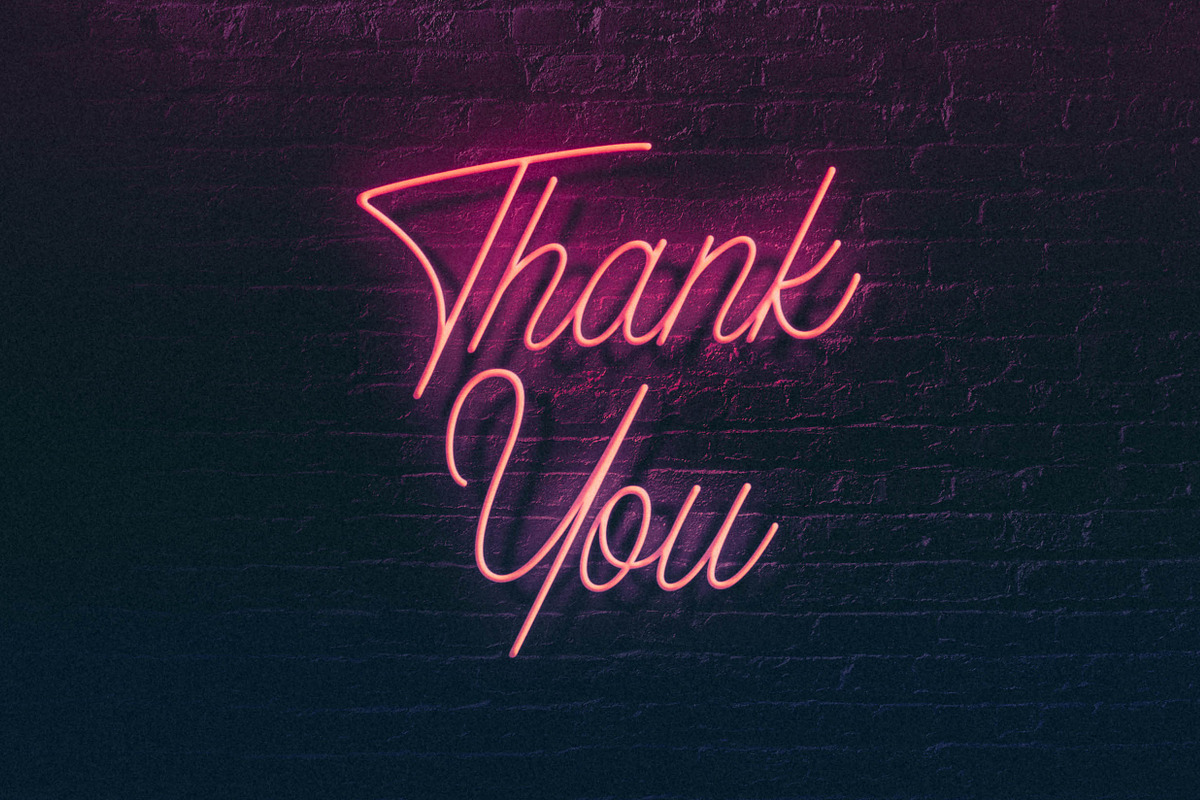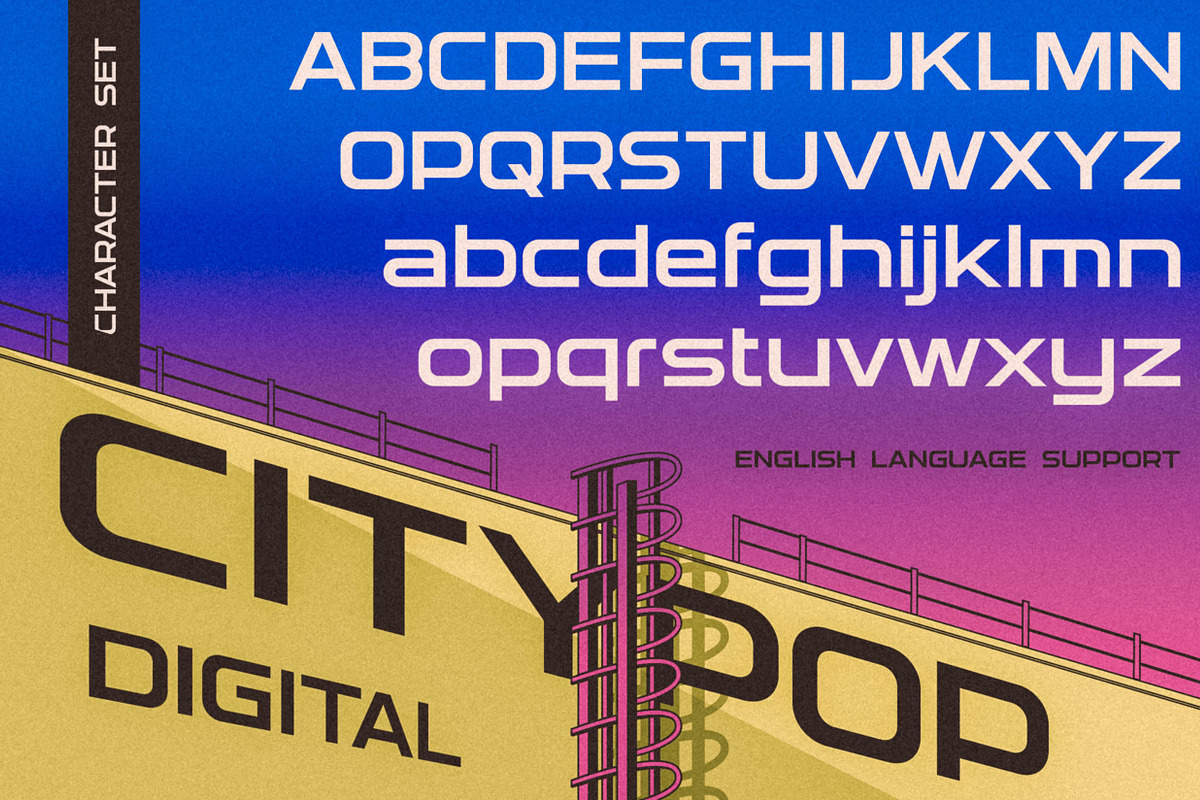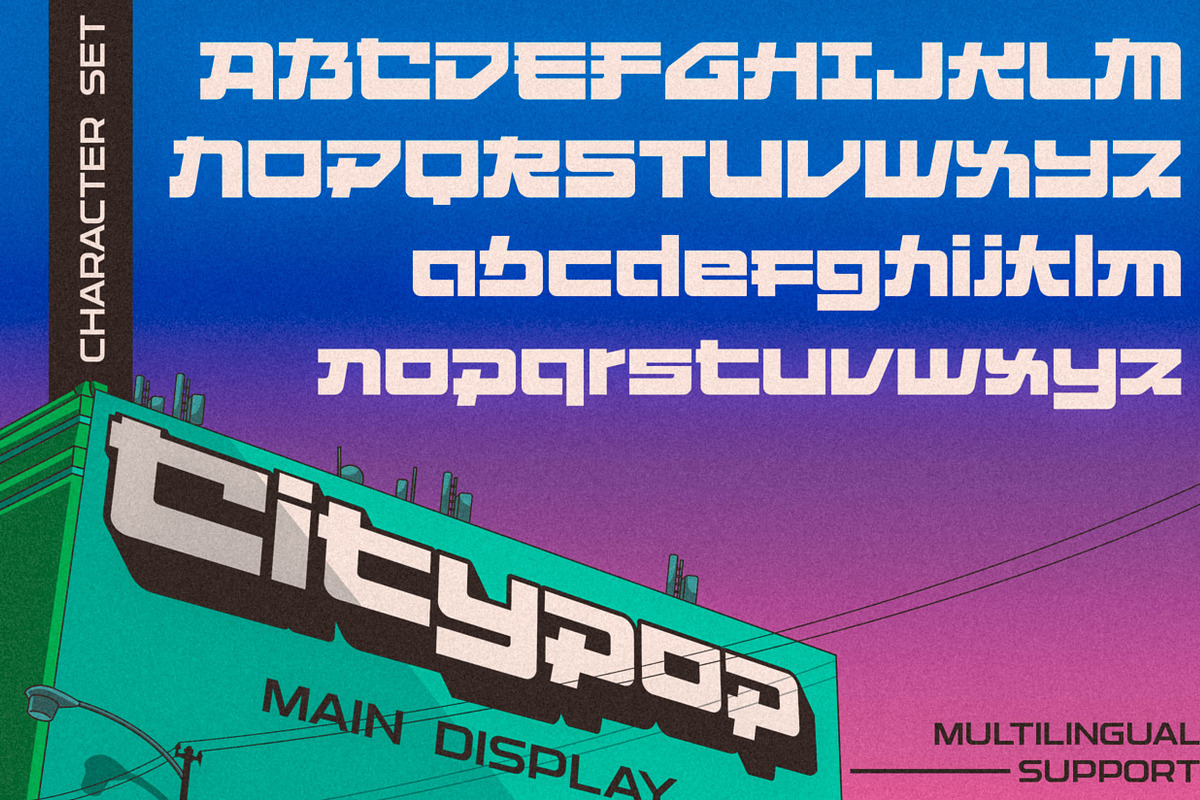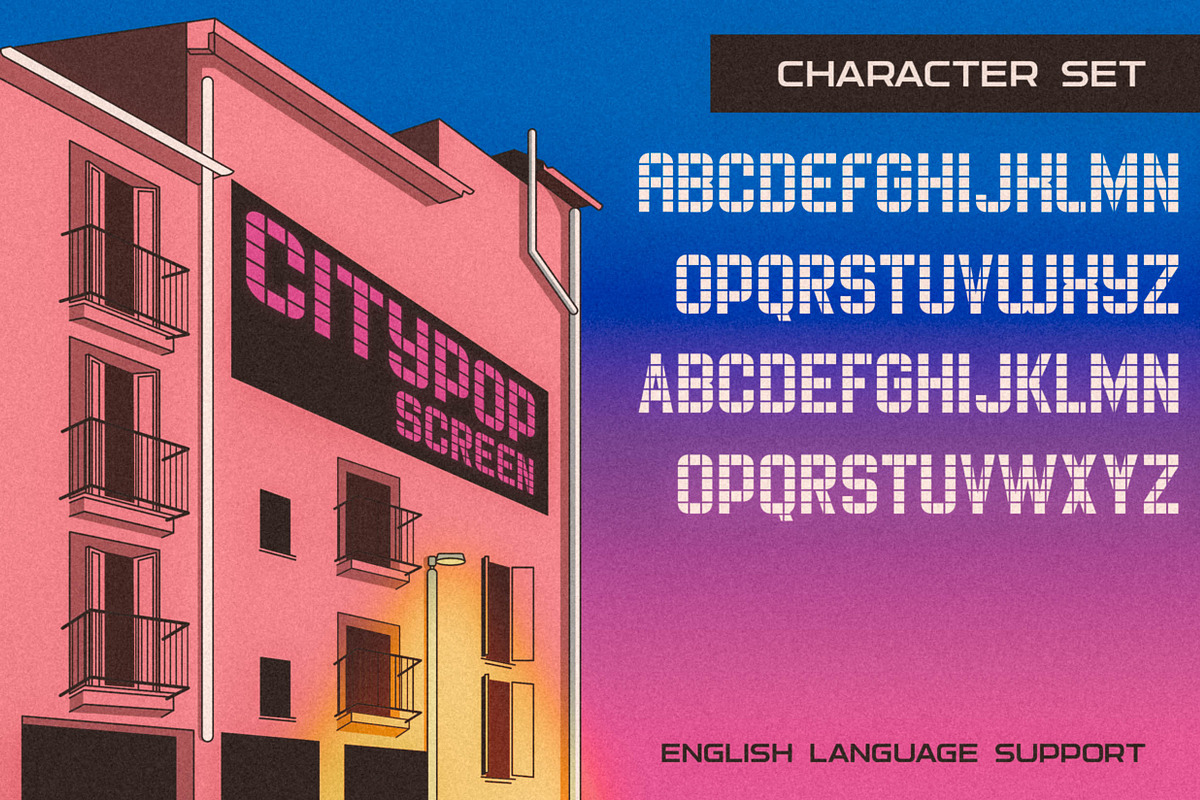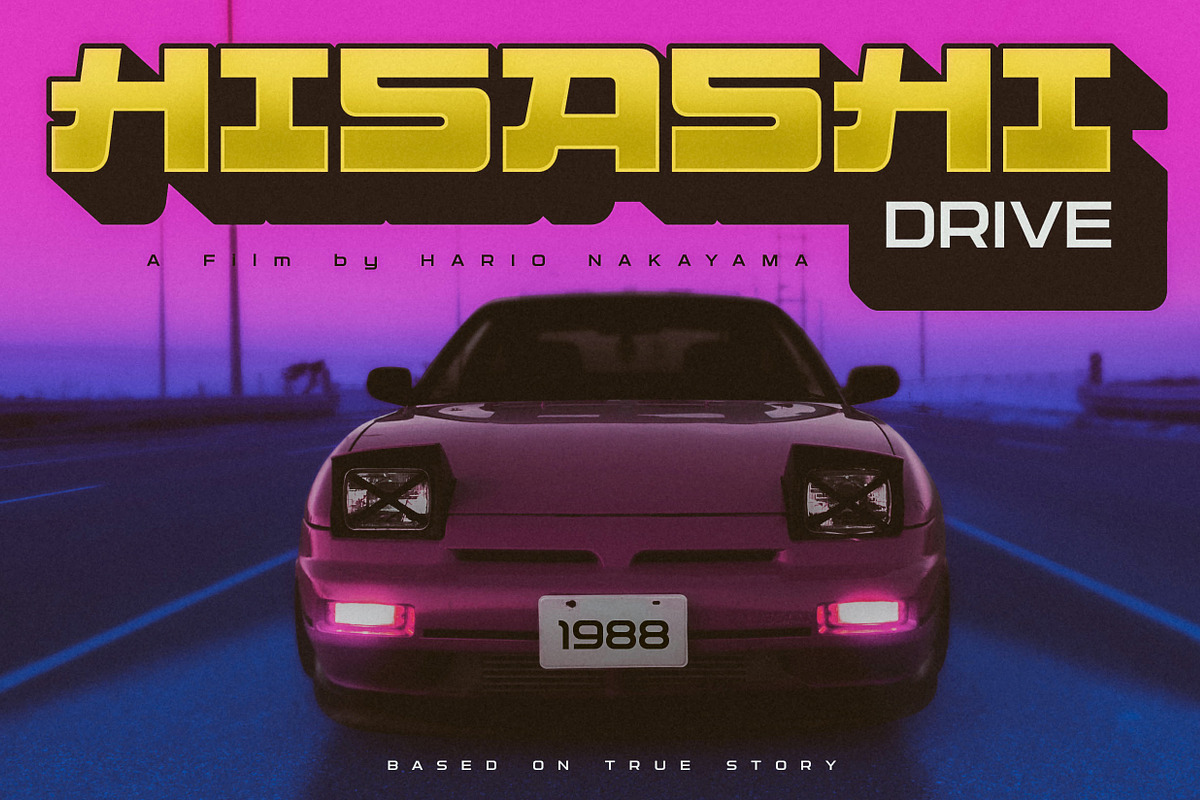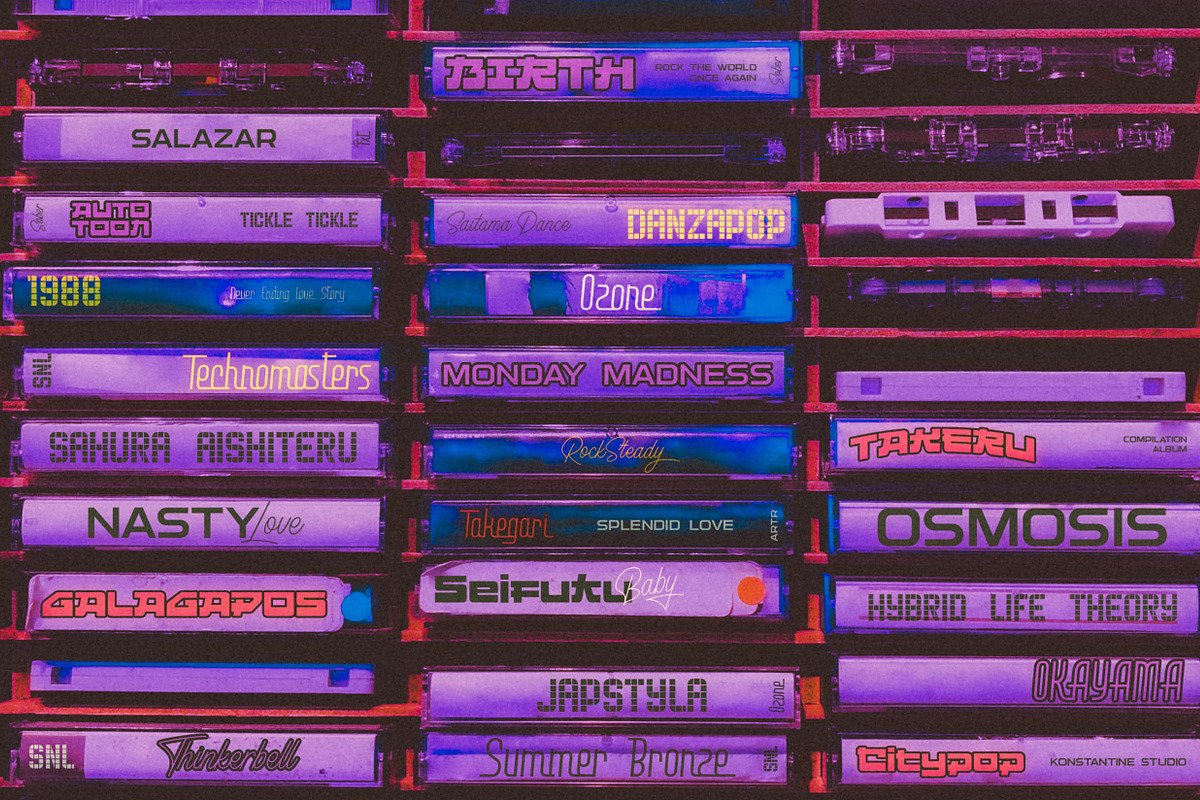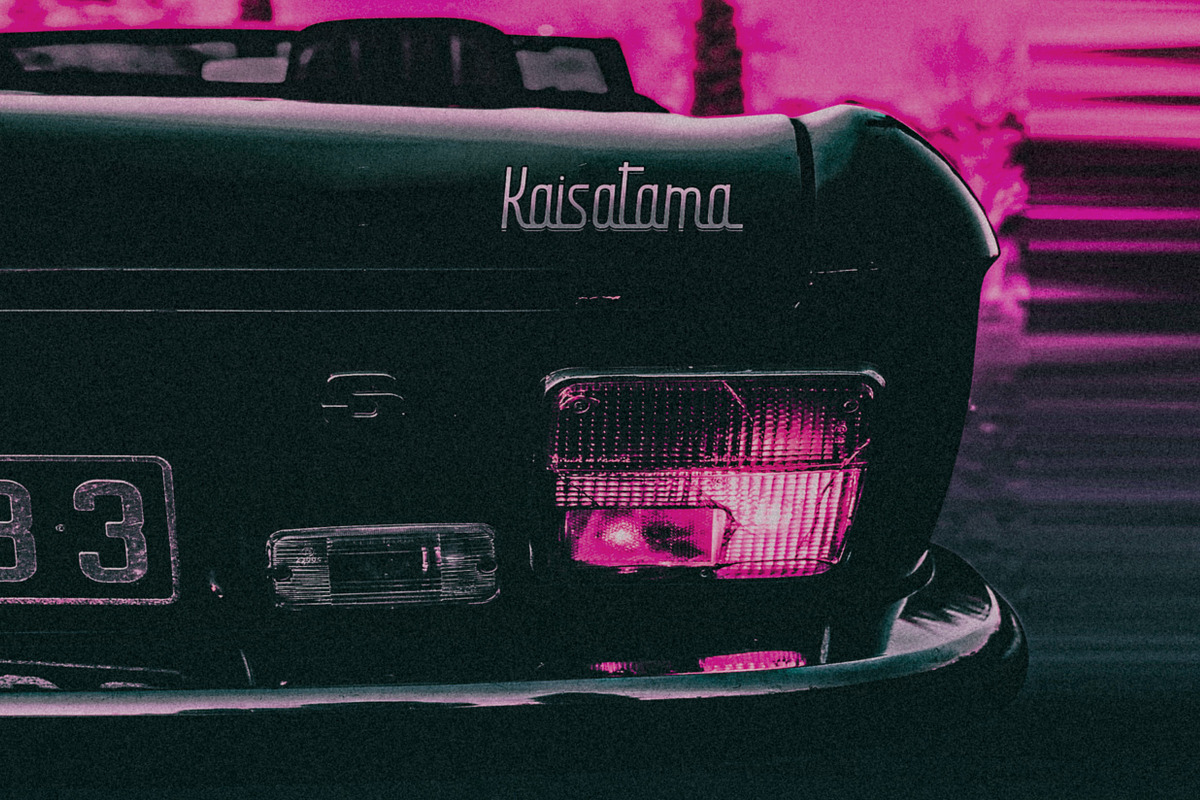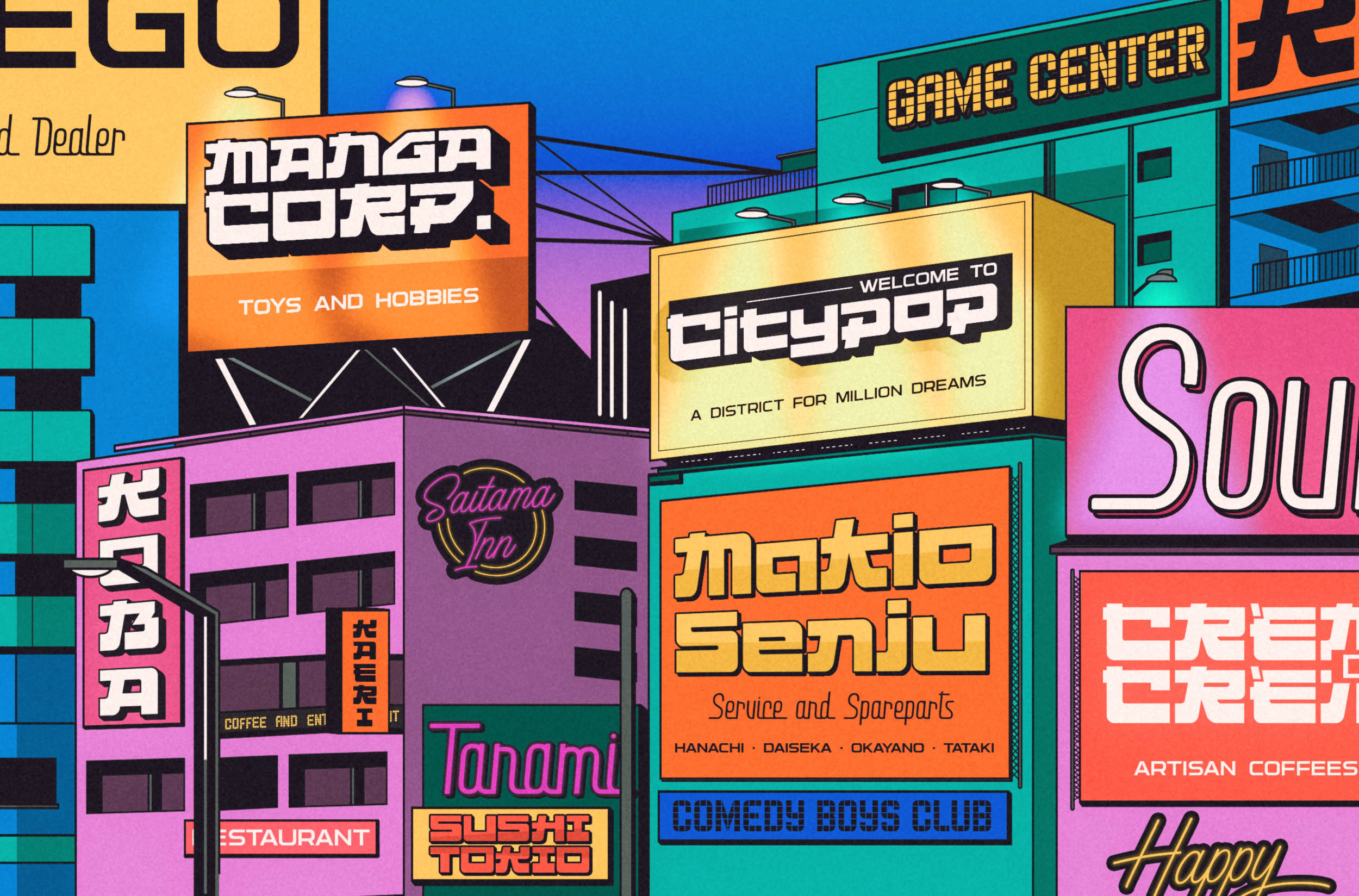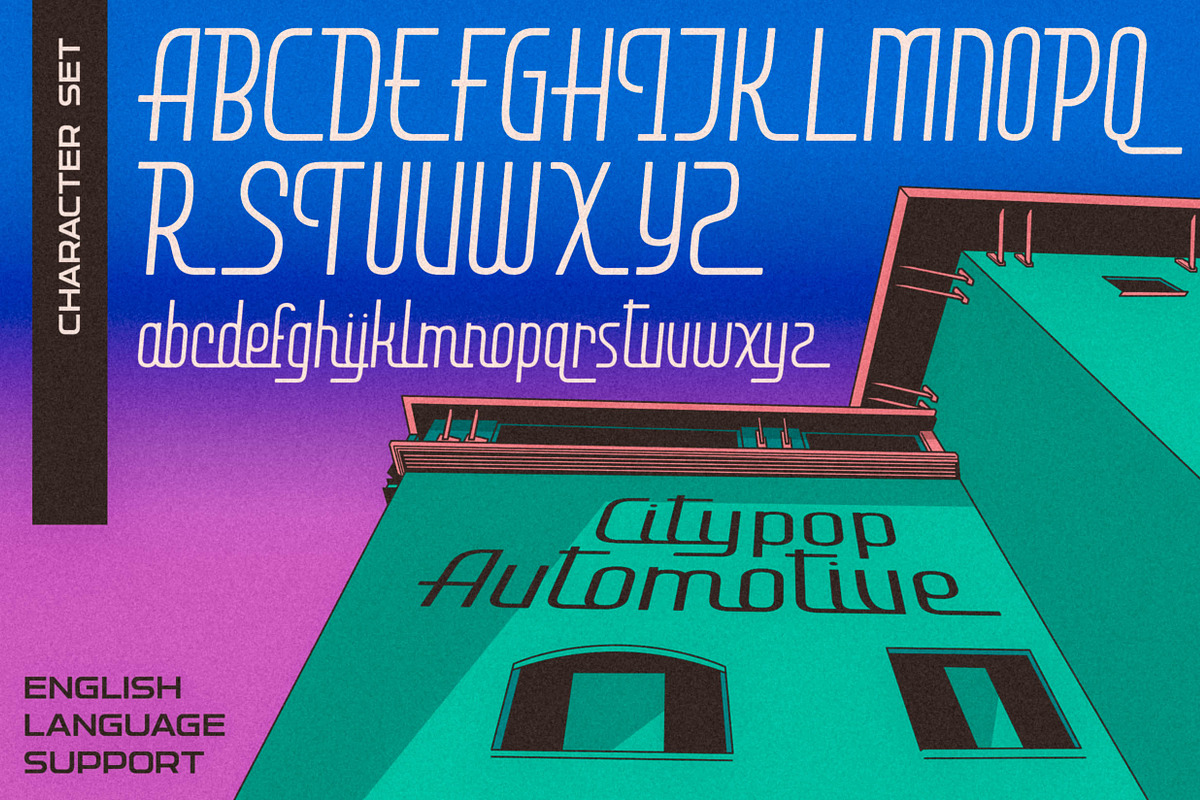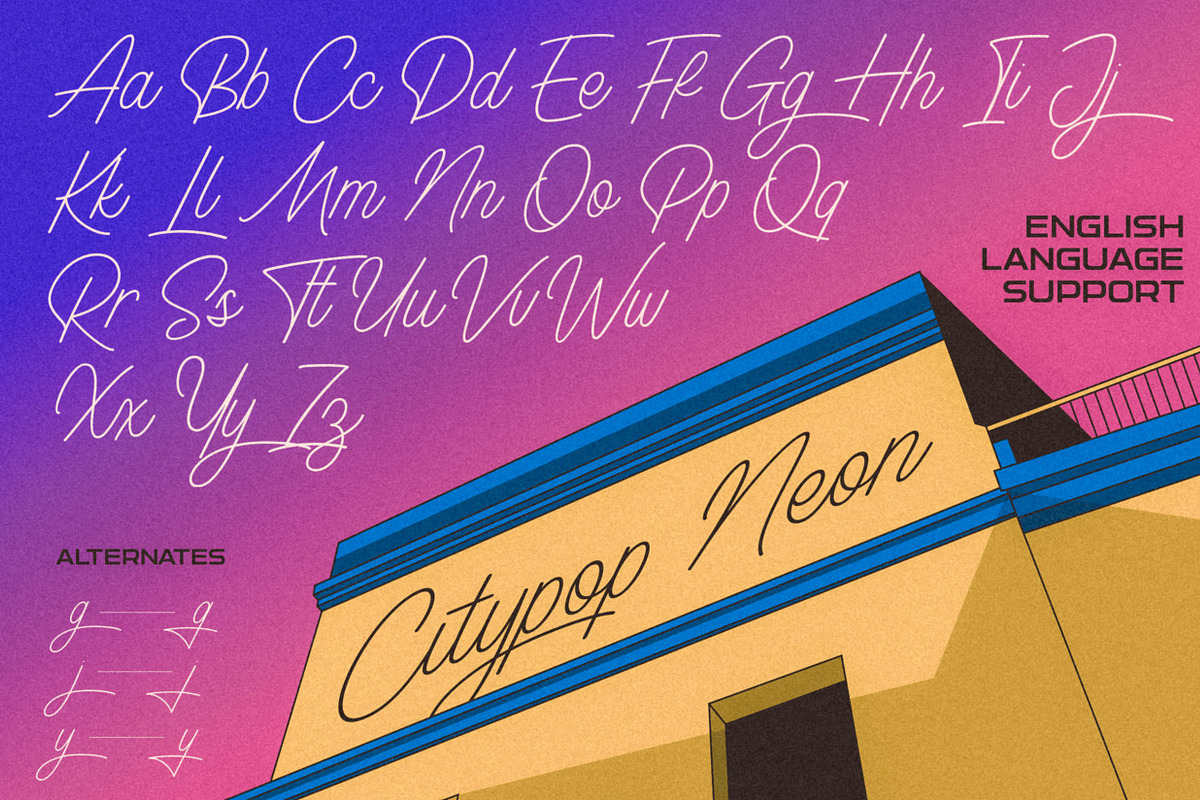
CITYPOP - Japanese 90s Retro Fonts
Inspired from the old era of embracing the trends of emerging sound-system and music technology such as walkman, cars with built-in cassette deck, FM stereos, and electronic musical instruments.
We came up with the idea of the terms from Citypop itself. A popular trend of musical culture, fashion, and lifestyle from Japan back in the late 70s to 90s. Also known as Vaporwave, Future Funk, and Synthwave in the American music industry.
Came up in a bundle of 5 fonts that tailored to perfectly match with the era. The imagination of vibing up the driving old cars with the music from a cassette deck, a sunset view of the crowded city with neon signs and lights, are always our main jam in the process of crafting these fonts.
- Citypop Main Display : A intense extended and well-tailored bold display font with the inspiration of Japanese letters shape. We crafted each letter to mimicking the stroke and shape so it will be a perfect main display font in this bundle. Built-up with some minimal Stylistic Alternates and Multilingual Support to widen the usage of this font.
- Citypop Automotive : A clean and sophisticated luxury script font inspired by the vintage cars logo. And also great for the sign, console, and electronic logo brand just like how the city pop era works. It contains some simple Ligatures to shape up the word looks and English Language Support only.
- Citypop Screen : Inspired from the monochrome screen from the first roll of analog-to-digital era of the city pop itself. If you're familiar with walkman, tape deck, boombox, digital watches, running text sign store, you know where it up to. It supports English Language only.
- Citypop Digital : Still the same vibe from analog-to-digital technology. But it kinda has some newer vibes and of course, the sans-serif tone in this font will nicely cover the versatility of the whole concept of this city pop theme. English Language Support
- Citypop Neon : A night urban pop city theme will not be perfect without the neon sign. This font came up as a finishing touch to this whole concept. Undoubtedly a good companion to decorate your design aesthetically. Came up with a simple Alternate for g,j,y letters to give some fresh and natural flow. English Language Support only.